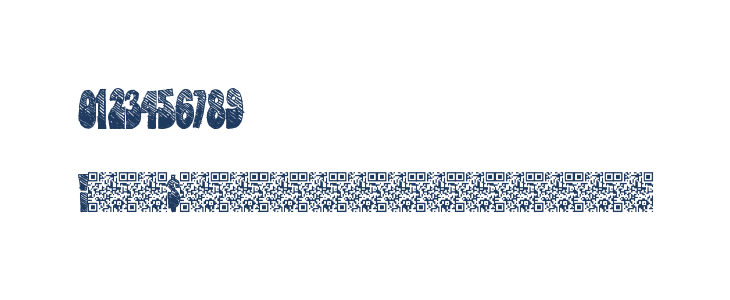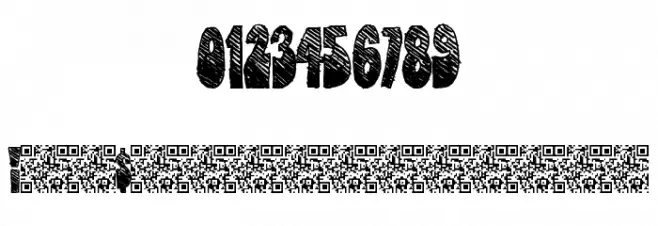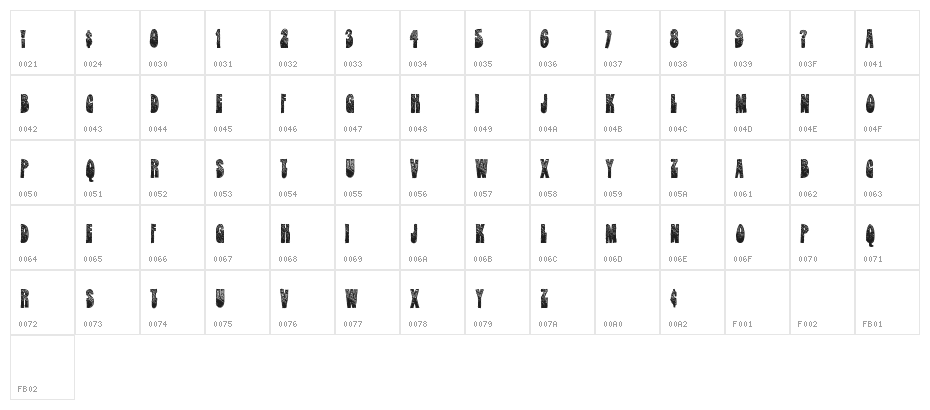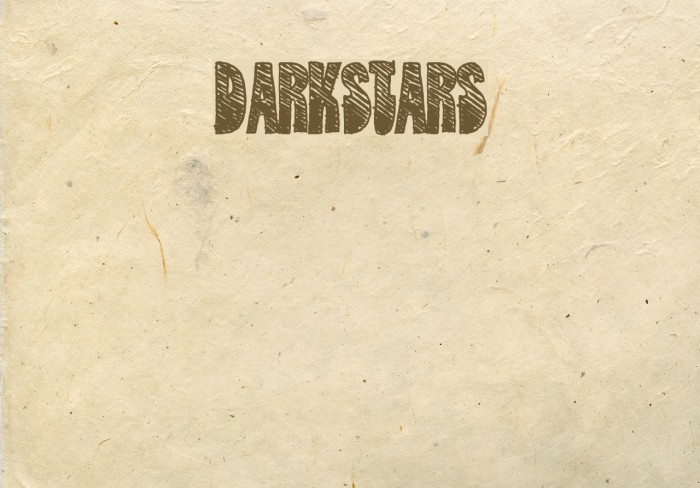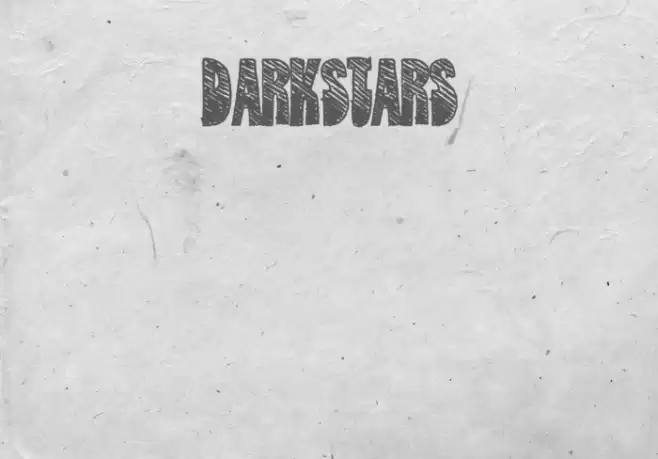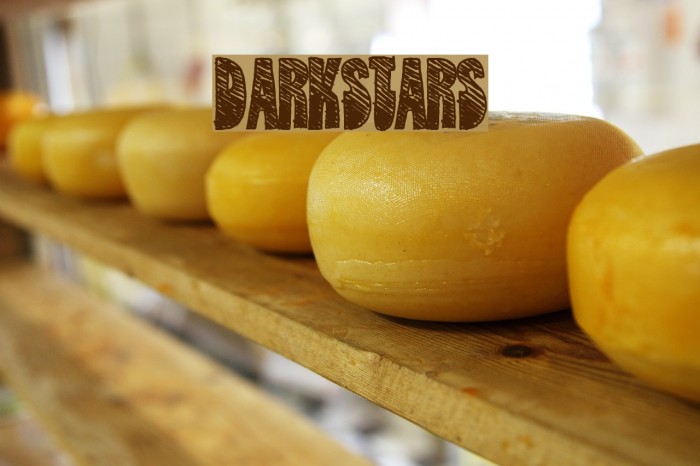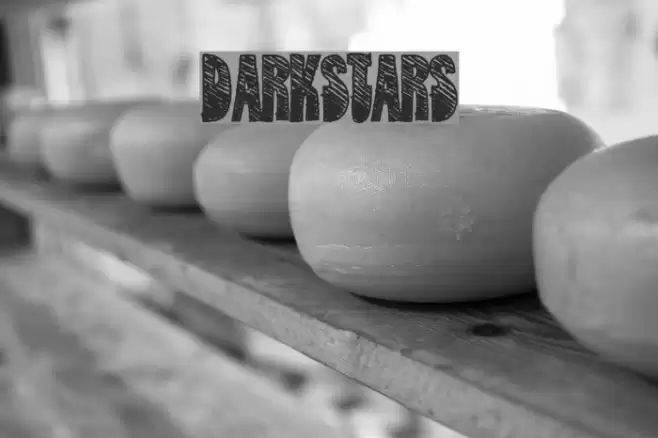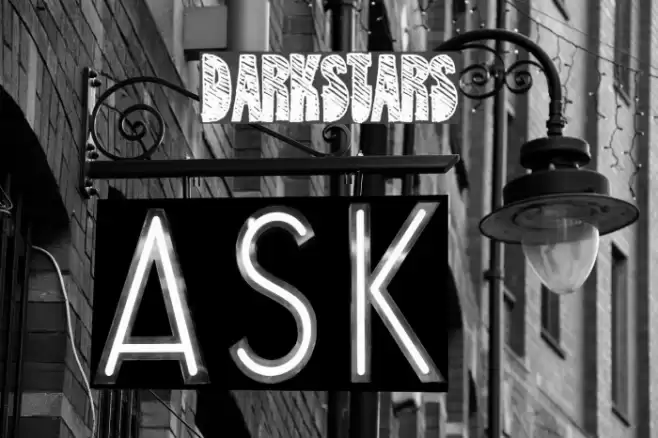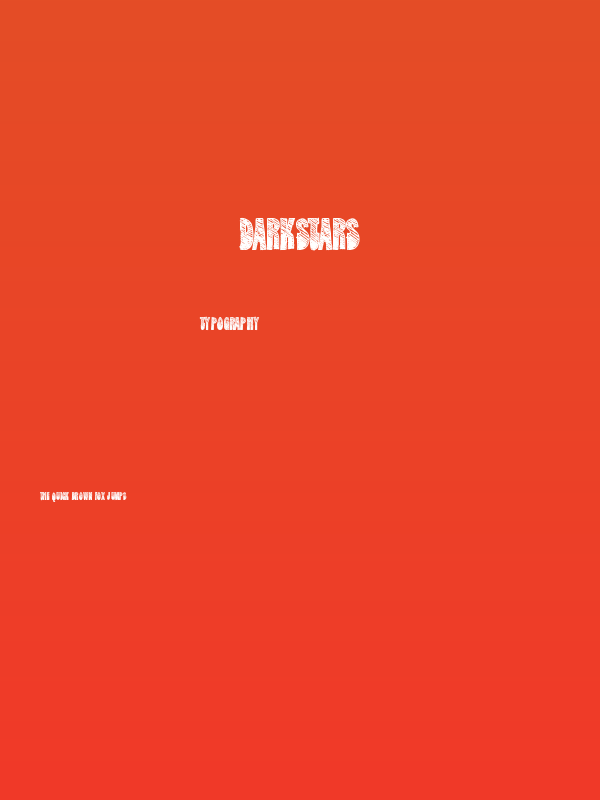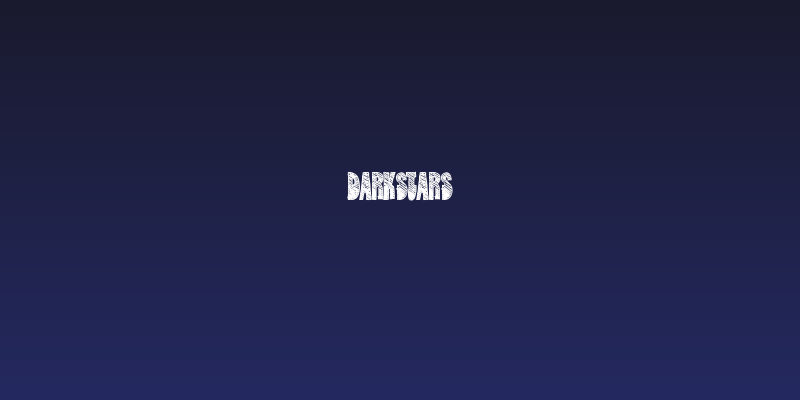
DarkStars Font
DarkStars Description
This font features a bold, textured style with a playful and dynamic appearance. Each character is filled with a pattern that resembles a starry night sky, giving it a unique and eye-catching look. The letters are uppercase and have a slightly irregular shape, adding to the whimsical feel. The numbers and special characters follow the same design, ensuring consistency across all elements. This font is perfect for projects that require a fun and engaging visual impact.
| Proposed Projects | Ideal for children's book covers, party invitations, posters, and any creative project that benefits from a whimsical touch. |